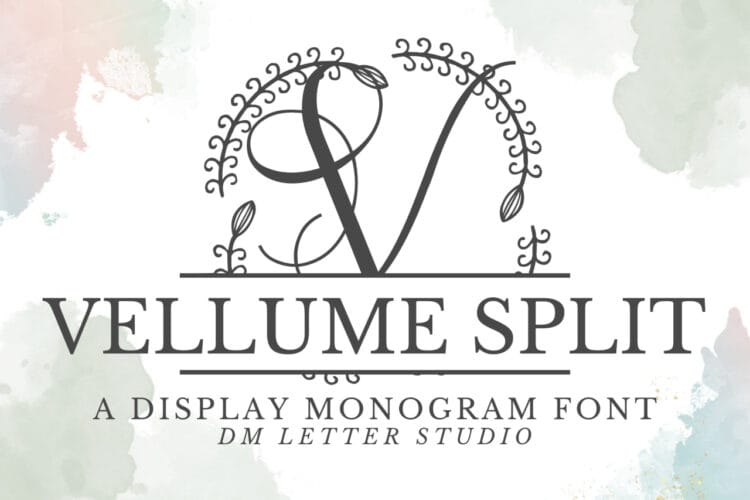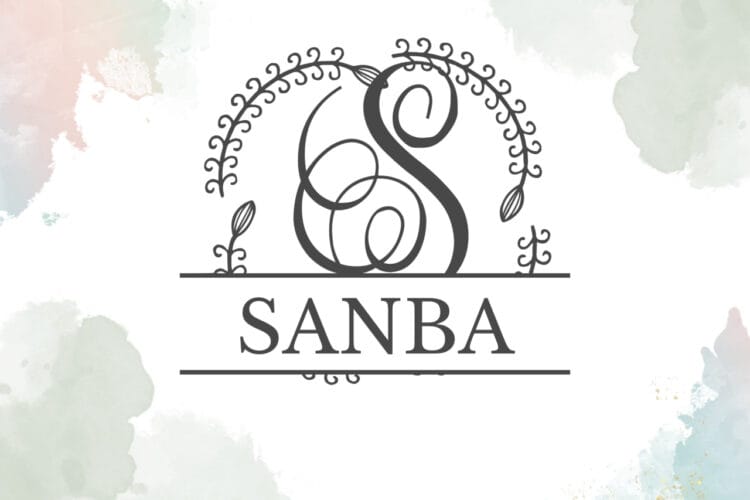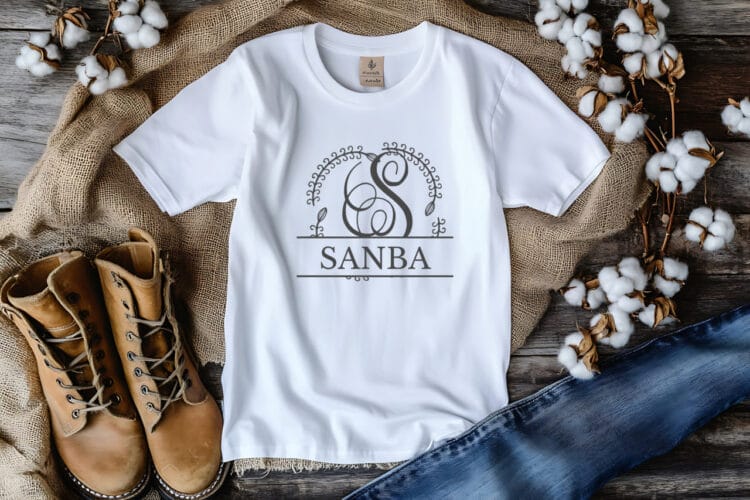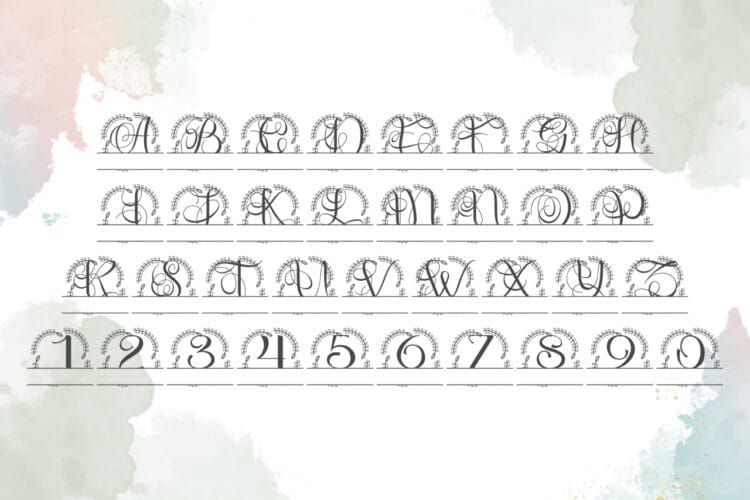
Meet Vellume Split Monogram, the Monogram Font
Vellume Split Monogram Font turns initials into soft and elegant designs. Each letter is clean and balanced. A refined split bar runs through the center, giving space for names, dates, or short words. Because the shapes are open and clear, the font stays readable at small sizes. At the same time, it still looks graceful on large prints. As a result, it works well for weddings, branding, and keepsake projects.
Where this split monogram font shines
Use one, two, or three initials for logos, invitations, menus, place cards, and seals. In the center split, you can add names, wedding dates, or locations. Because the layout is symmetrical, designs feel calm and polished. For example, you can frame it with ovals, wreaths, or thin lines. Moreover, it stays consistent across invitations, signage, boxes, ribbons, and gift tags. Whether printed small or large, it scales smoothly and stays clear.
Design tips for Vellume Split Monogram
Keep initials large and let white space breathe. This helps the split detail stand out. Pair the monogram with a soft serif or a light sans serif for supporting text. Also, textured paper, vellum wraps, and metallic foils enhance the soft look. Because the design is already elegant, keep wording short. That way, the monogram stays the main focus on seals, favors, and small packaging.
Center split feature for names or dates
Select stylistic alternates for key letters
Curves optimized for foil, letterpress, engraving, laser cutting, and clean vinyl paths
Why creators choose this split monogram font
You want a monogram that feels soft, elegant, and easy to use. At the same time, you need clear results and fast layouts. That is why Vellume Split Monogram Font works so well. It delivers timeless style with less effort. In the end, your designs look polished across print, events, and packaging.